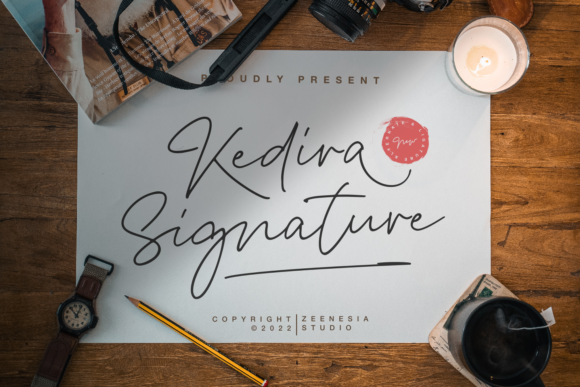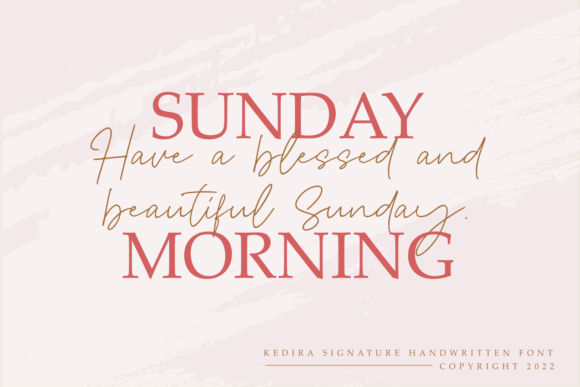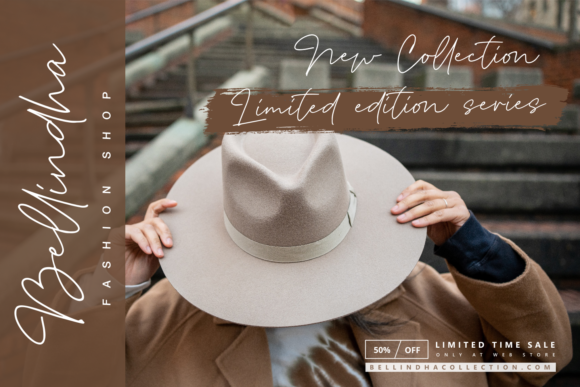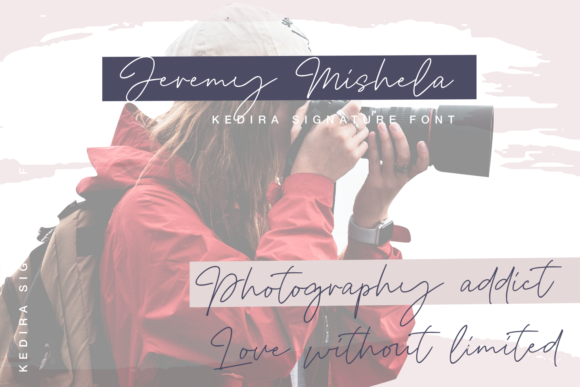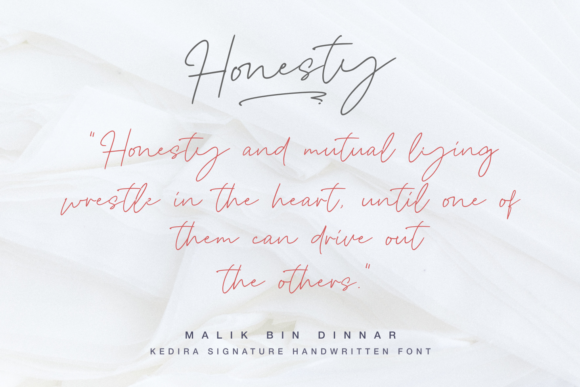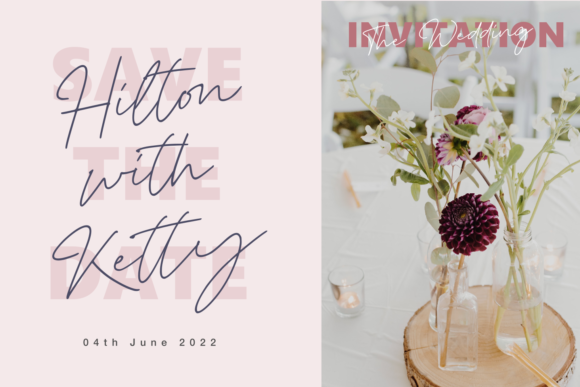
Introduction to Kedira Signature Font
You’ve finally nailed that perfect creative moment – a client loves your design concept, and you’re about to bring it to life. The excitement is palpable as you start crafting the final touches, but then you hit a snag: the perfect font to match your vision is nowhere to be found. This is where the Kedira Signature Font comes in – a delicate and thin lettered script font that adds an extra layer of sophistication to your creations.
With its PUA encoding, accessing all glyphs and swashes is a breeze, allowing you to add a personal touch to your designs. This means you can confidently add the Kedira Signature Font to your favorite creations, and the outcome will surely amaze. Whether you’re working on a high-quality design project or just need a reliable design resource, this font is sure to deliver.
As a designer, having access to high-quality fonts like the Kedira Signature Font can make all the difference in bringing your creative vision to life. Whether you’re working on a project that requires a transparent background or just want to add a touch of elegance to your designs, this font is an excellent choice. And the best part? It’s available for free download, making it an invaluable addition to any designer’s toolkit.
Key Features of Kedira Signature Font
- High-quality, unique design for creative projects, offering a distinctive touch to any visual content.
- Features a clear, legible font size, suitable for headings, titles, and body text in various contexts.
- Perfect for logos, branding materials, and other design elements where a distinctive, high-quality font is required.
Honest Review: Kedira Signature Font
As a designer, I’m always on the lookout for high-quality design resources that can elevate my creative projects. The Kedira Signature Font is one such find that caught my attention. In this review, I’ll share my honest thoughts on this font, its features, and what makes it a great addition to my design toolkit.
- High-quality design: The Kedira Signature Font is designed with attention to detail, resulting in a polished and professional look.
- Excellent for typography: The font is well-suited for headings, titles, and other text-based elements, making it a great choice for creative projects.
While the Kedira Signature Font is an excellent resource, there are some limitations to consider. The font is not suitable for large blocks of text, and it may not be as readable in smaller sizes.
Overall, I’m impressed with the Kedira Signature Font. Its high-quality design, free download, and transparent background make it a valuable addition to my design toolkit. If you’re looking for a unique and professional font for your creative projects, I highly recommend giving it a try.
The Kedira Signature Font is a high-quality design resource perfect for any creative project. It’s available for free download and features a transparent background, making it versatile and easy to use.
Tips for Getting the Most Out of Kedira Signature Font
Use the Kedira Signature Font to create professional-looking designs, and experiment with different font sizes and styles to add visual interest to your work.
The Kedira Signature Font is ideal for branding, logos, business cards, and other design projects that require a unique and stylish font.